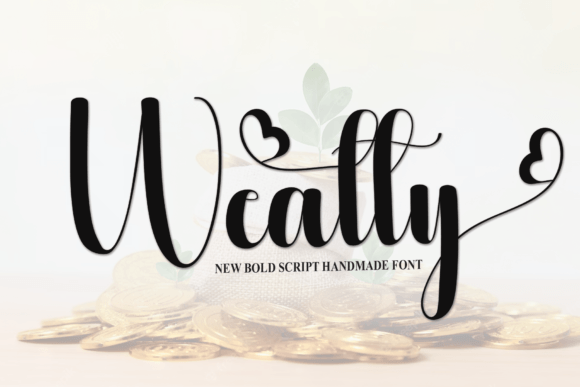
Prepare to be awestruck by Wealty Font, a script font family that will enchant you with its graceful strokes and elegant charm. This remarkable creation by andikastudio is a symphony of beauty, perfectly suited to elevate your creative projects to new heights.
Let Wealty's captivating curves and sweeping lines draw you into a world of timeless elegance. Its enchanting style will breathe life into your designs, whether you're crafting logos, branding materials, or eye-catching social media graphics. Wealty's versatility knows no bounds, making it the perfect choice for a wide range of projects, from wedding invitations to product packaging and beyond.
Immerse yourself in the splendor of Wealty's meticulously crafted characters. Each letter dances across the page with fluidity and grace, creating a visual masterpiece that will leave a lasting impression. Its organic flow and harmonious rhythm will add a touch of sophistication to your designs, setting them apart from the ordinary.
Feel the creative energy surge through you as you explore the endless possibilities that Wealty Font offers. Unleash your imagination and let the beauty of its lines guide you towards stunning designs that captivate and inspire. With Wealty as your creative companion, you'll discover a new level of artistic expression and leave your audience spellbound.
Don't miss this opportunity to embrace the magic of Wealty Font. Embark on a creative journey where elegance and beauty intertwine, and witness the transformation of your designs into works of art. Let Wealty be your muse, guiding you towards creative triumphs and leaving an indelible mark on the world of design.